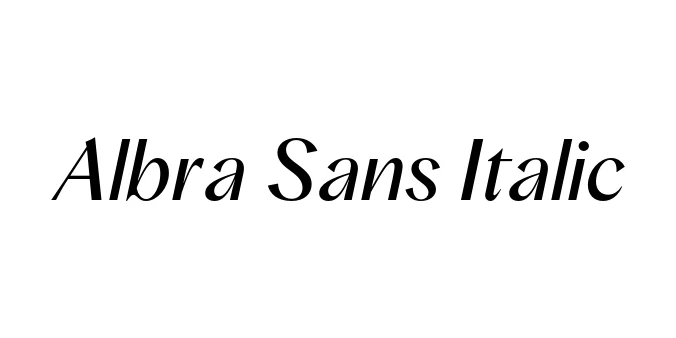
Albra Sans Italic
Designed by BumBumType (Tom Anders Watkins & Ellen Luff)
Albra Sans Italic is a sophisticated extension of the larger Albra collection, designed to bridge the gap between classic elegance and contemporary utility. Characterized by its high-contrast strokes and humanist-inspired structure, this typeface offers a distinct personality that stands out in a crowded digital landscape. The italic variant introduces a graceful slant and fluid motion, enhancing the rhythmic flow of text while maintaining exceptional legibility across various scales.
Developed by the creative studio BumBumType, Albra Sans Italic was crafted to meet the demands of high-end editorial and branding projects. Its unique aesthetic draws inspiration from mid-century modernist ideals while incorporating modern optical refinements. This makes it an ideal choice for designers looking to convey a sense of luxury and precision in both print and digital environments, particularly when used for headlines and stylistic accents.
Albra Sans Italic Best Uses
Perfect for magazines and digital publications requiring a touch of class.
Ideal for high-end fashion, beauty, and lifestyle brand identities.
Effective for headlines and promotional materials that need to capture immediate attention.
Adds a distinctive and professional look to modern website headers and hero sections.